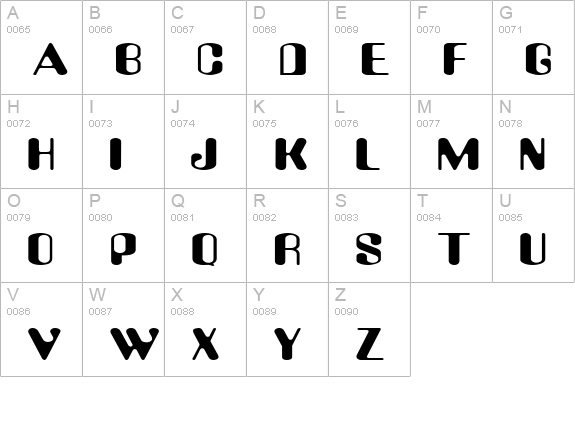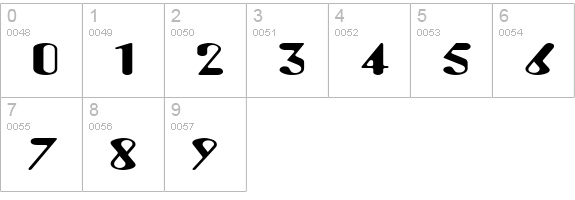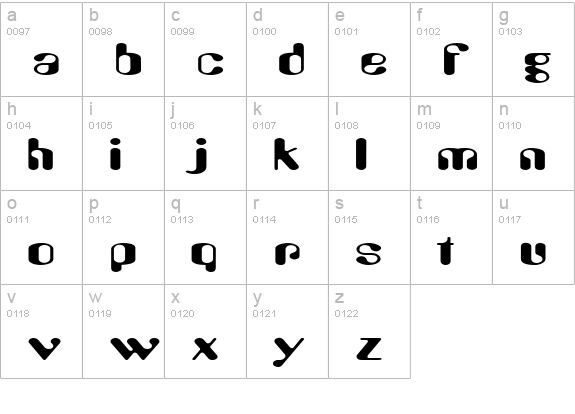
Amos Extended Normal is the standard, neutral, extended-width variant in the Amos typeface family \xE2\x80\x94 well suited to general body text, paragraphs, and standard typographic work.
Amos Extended Normal is a sleek and modern font that exudes sophistication and professionalism. With its clean lines and balanced proportions, this typeface is perfect for a wide range of design projects. Whether you're creating a sleek logo, elegant branding materials, or stylish print designs, Amos Extended Normal is sure to make a strong impression. What's even better is that Amos Extended Normal is available for free download at FontsMarket.com. So you can easily access this high-quality font to elevate your projects without any cost. Don't miss out on the opportunity to enhance your designs with the timeless elegance of Amos Extended Normal.